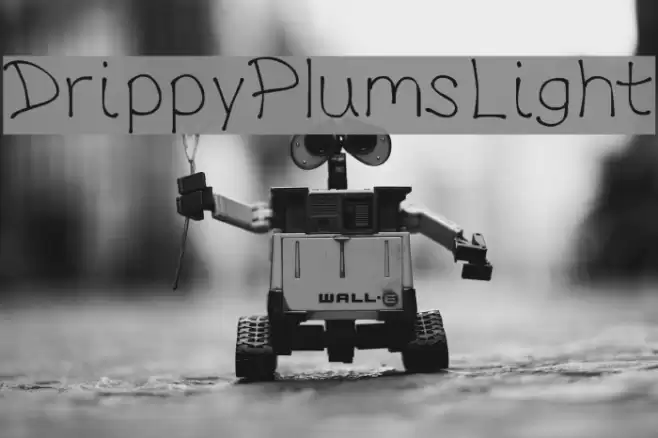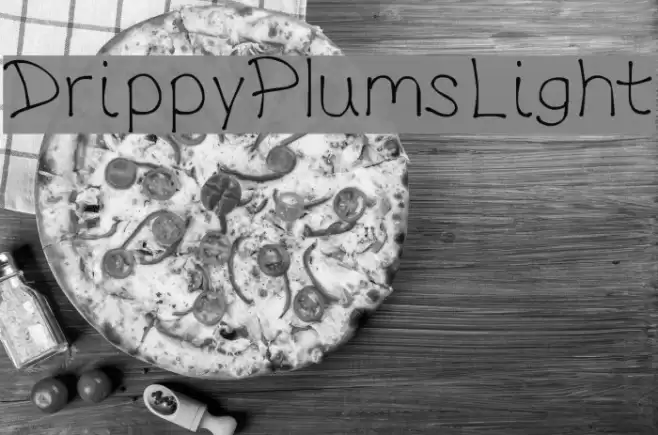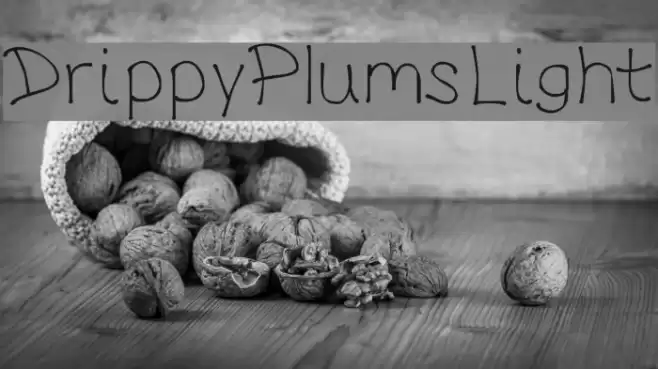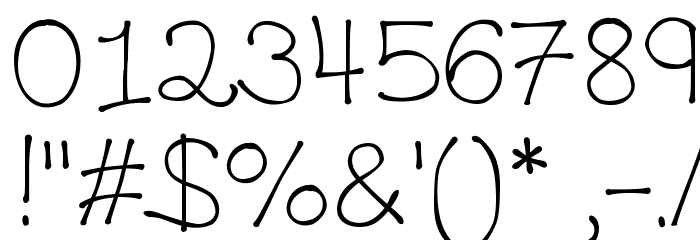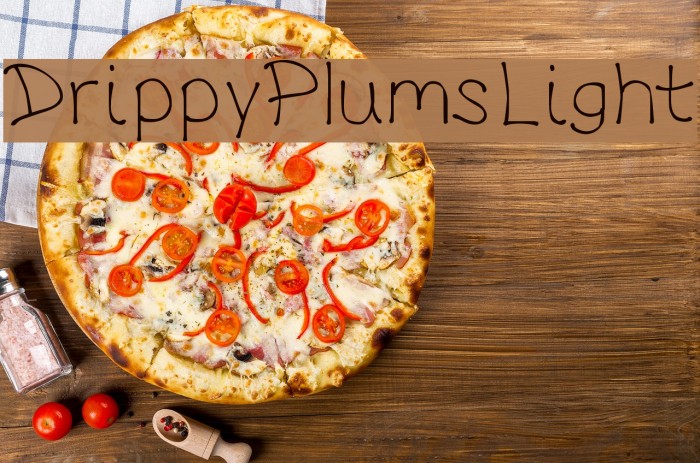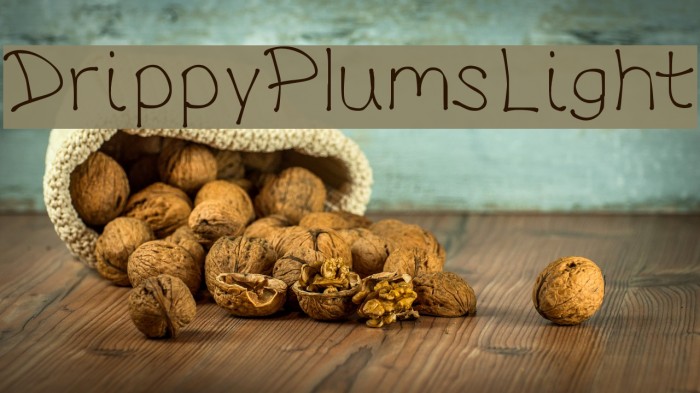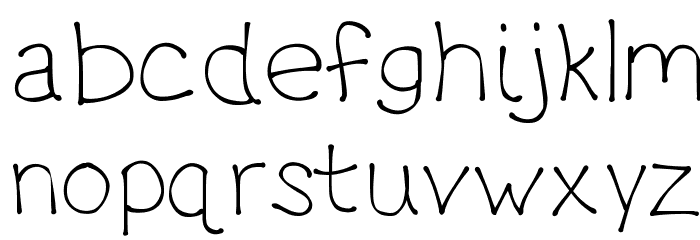
DrippyPlumsLight Font
DrippyPlumsLight Description
This playful and whimsical font features a handwritten style with a casual and friendly appearance. The letters have a slightly uneven baseline, adding to the informal and relaxed feel. The strokes are smooth and rounded, giving the font a soft and approachable look. The uppercase and lowercase letters maintain a consistent style, with a slight variation in size and shape that enhances the handwritten effect. The numerals are clear and easy to read, matching the overall aesthetic. Special characters are included, maintaining the same playful style. This font is perfect for projects that require a personal touch or a fun, informal vibe.
A playful, handwritten font with a casual and friendly style from Uncategorized fonts.
- Proposed Projects: Ideal for children's books, greeting cards, personal blogs, and playful branding.
- Overall Style: Casual, Playful
- Use Case: Headlines, Informal text, Creative projects